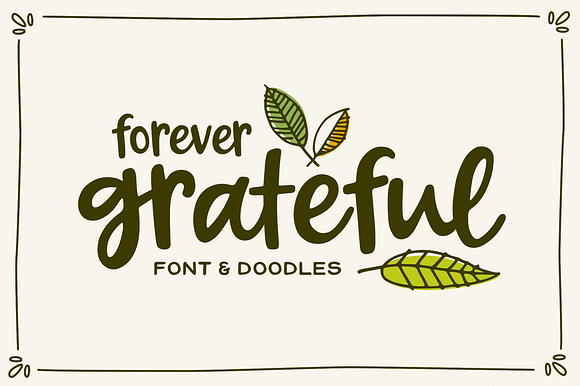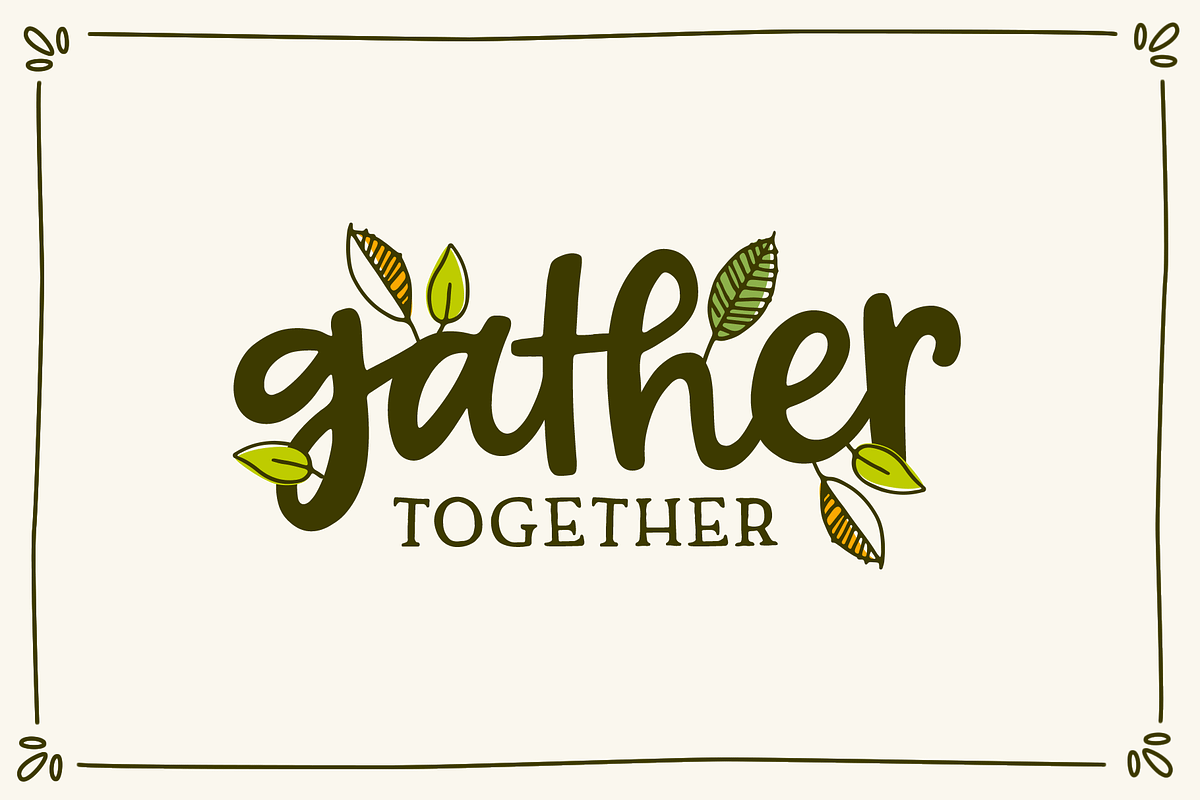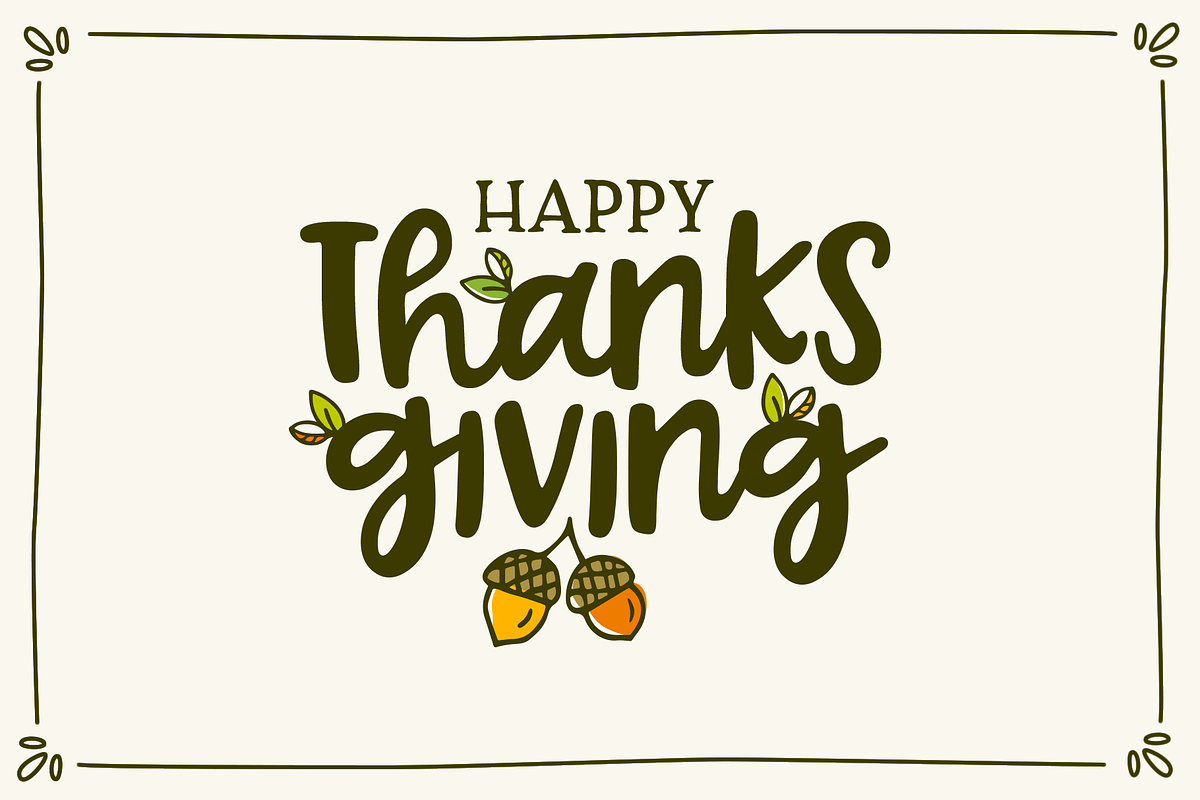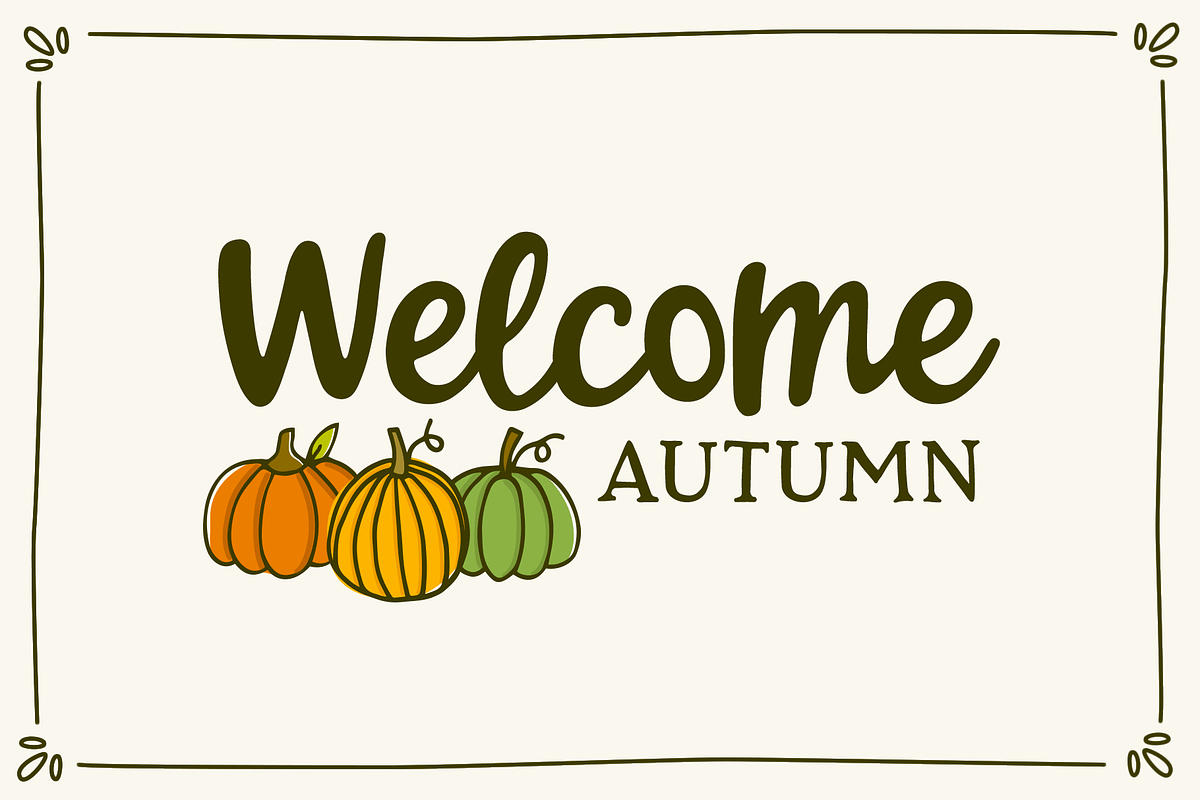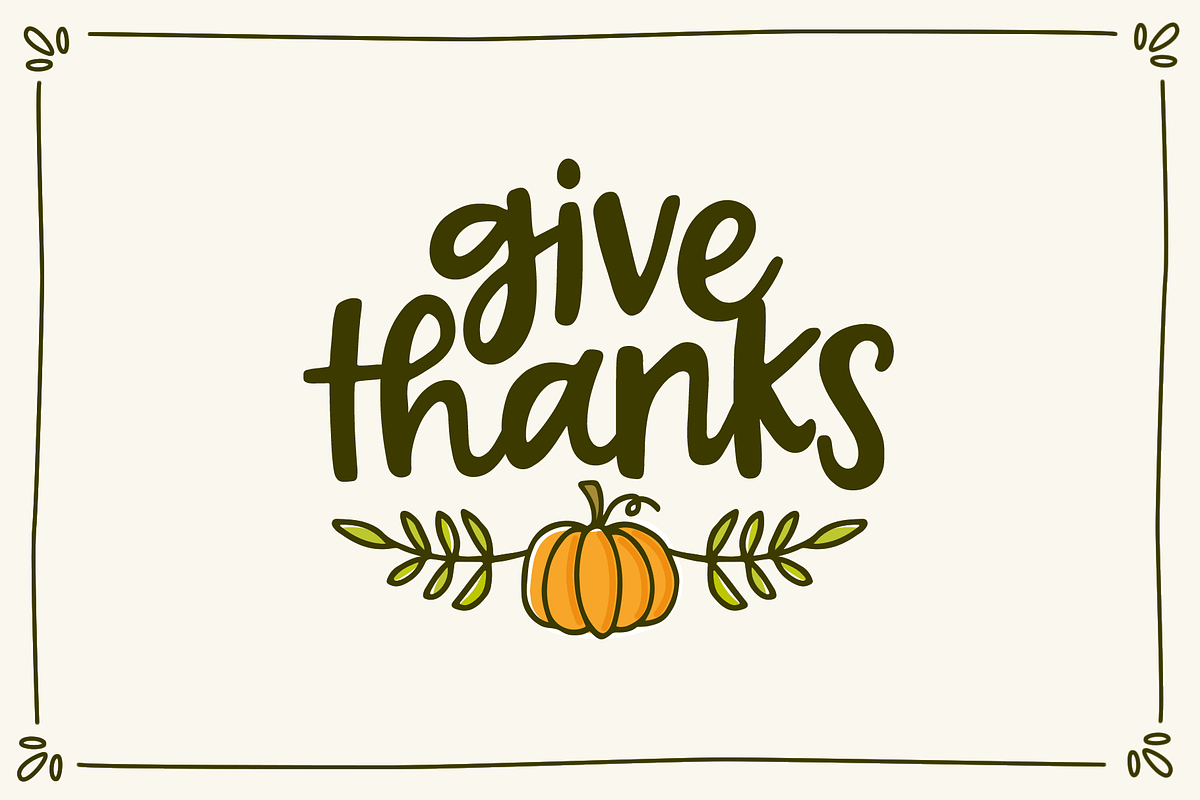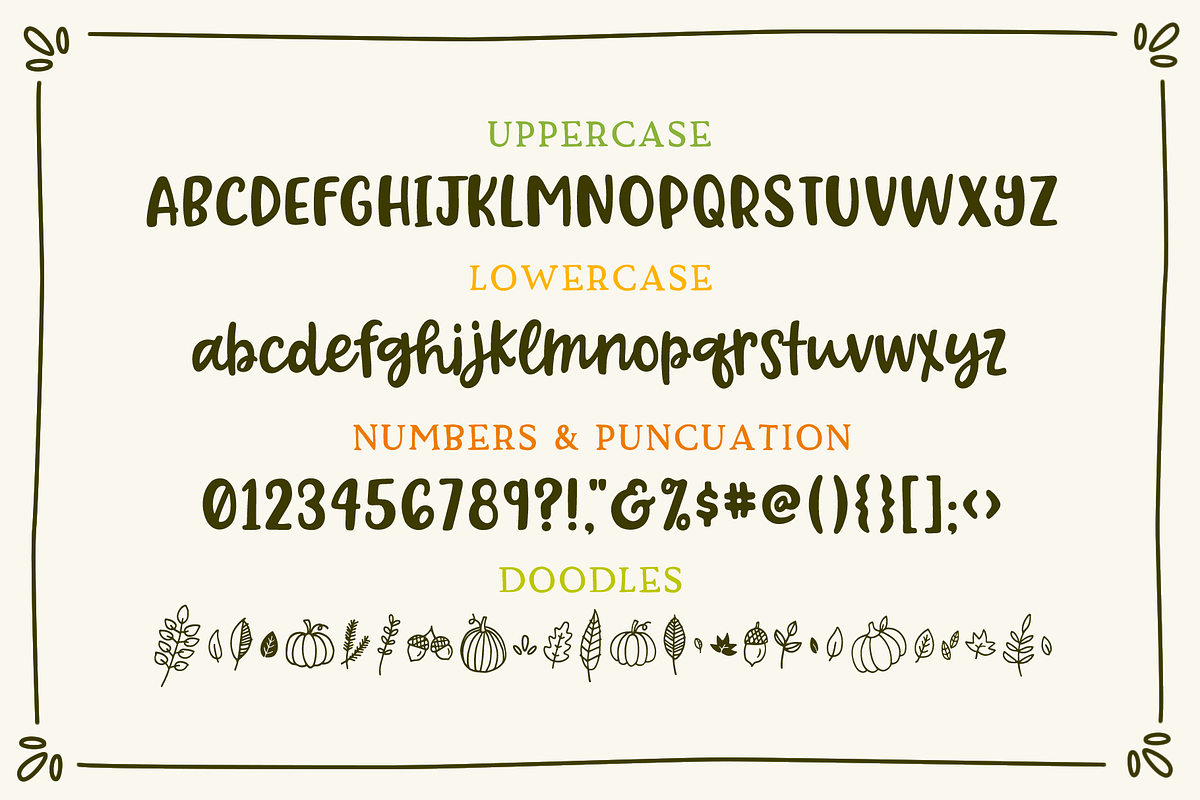
Forever Grateful Font & Doodles
Forever Grateful is a playful, hand-drawn script. It comes with a set of autumn themed doodles that can be accessed with upper and lowercase letters using Forever Grateful Doodles. English language only.
- It comes with a set of autumn themed doodles that can be accessed with upper and lowercase letters using Forever Grateful Doodles.
Forever Grateful Font & Doodles by Denise Chandler fits naturally into Branding, posters, packaging, typography.